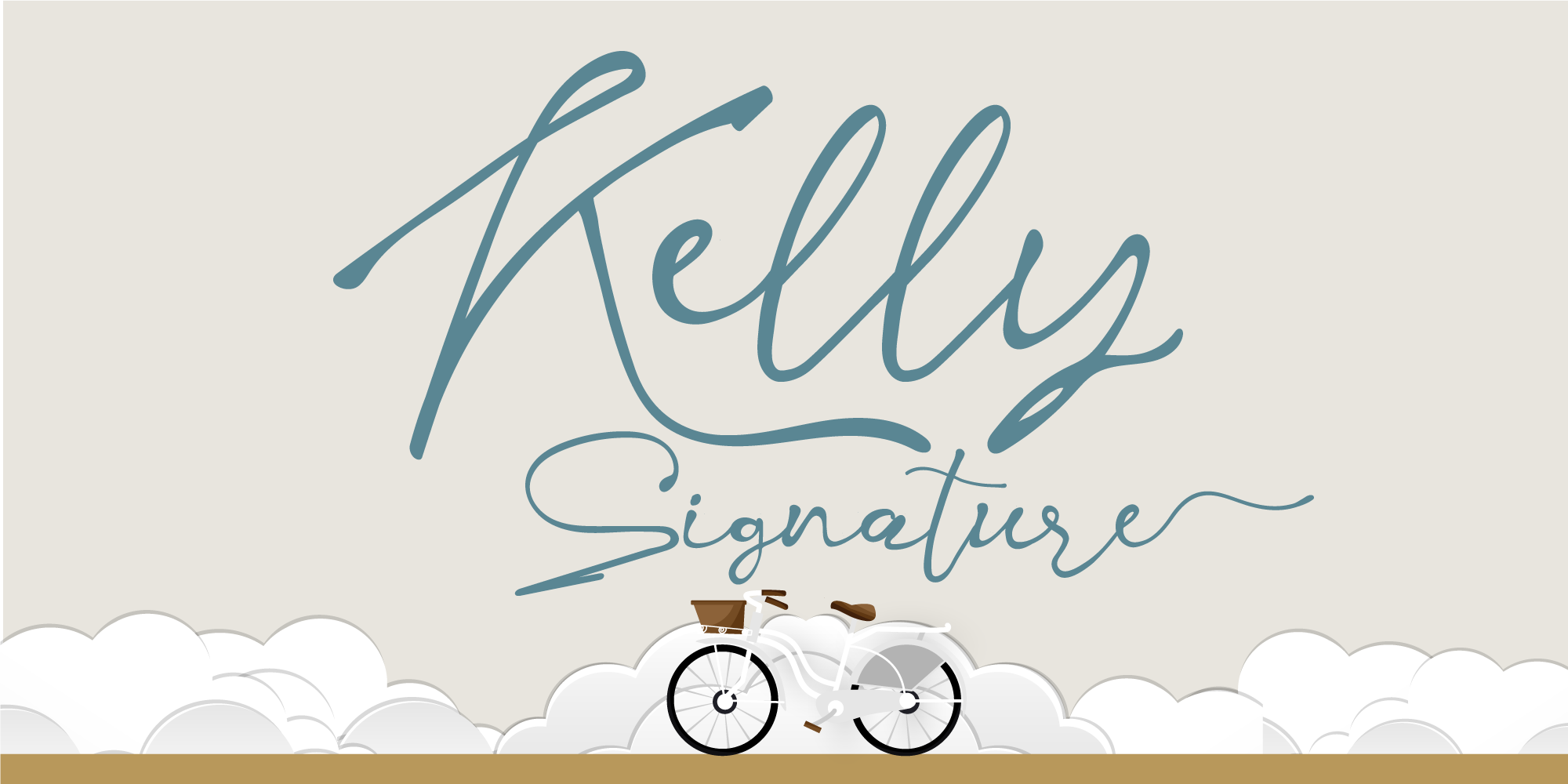
Kelly Signature Font Free Download – Elegant and Personal Handwritten Typeface
Looking for a stylish and elegant handwritten font that adds a personal touch to your designs? Kelly Signature Font Free Download offers a beautiful, flowing script style that’s perfect for branding, wedding invitations, logos, and social media graphics.
Kelly Signature’s natural strokes and sophisticated curves create an authentic signature feel that brings warmth and personality to your projects. Whether you’re designing greeting cards, product packaging, or digital content, this font adds a unique and classy flair.
Add a personal and elegant touch to your typography with Kelly Signature — a font that captures the essence of authentic handwriting.